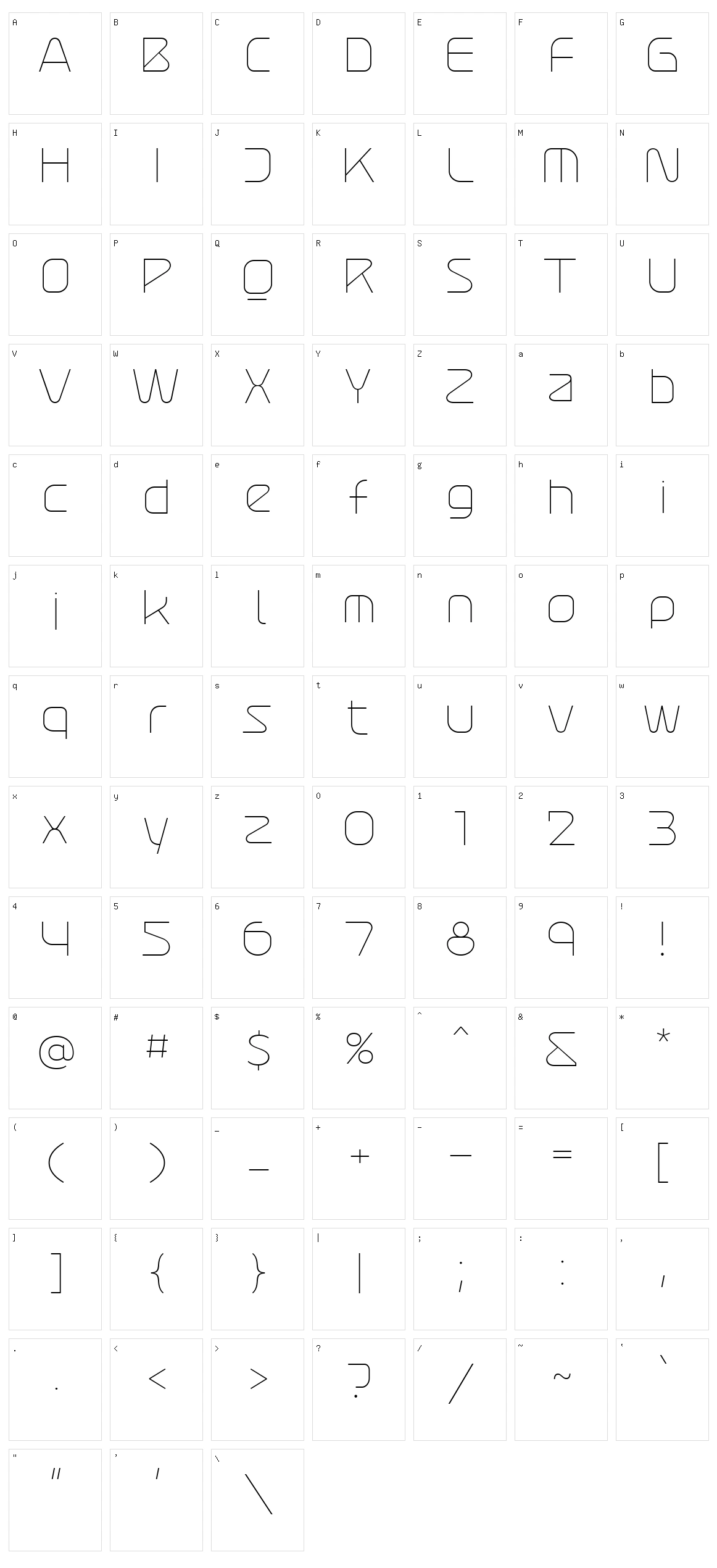
Atures
Designed by: Mans Greback
Atures is a high quality multi-weight typeface, drawn and created by Måns Grebäck during 2018.
It is a professional font family with futuristic, space-inspired design.
The family consists of 12 weights and with italic a total of 24 styles.
Atures has extensive language support, and contains all characters you'll ever need.